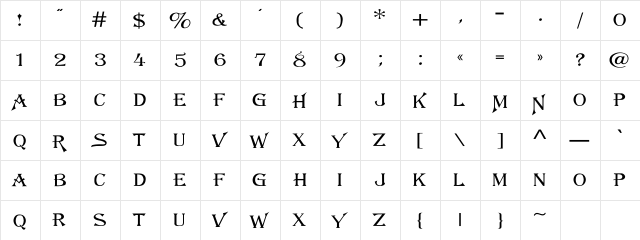
SpeakEasyBold Regular Free Font
SpeakEasyBold Regular
Design Context for SpeakEasyBold
SpeakEasyBold is a composed and adaptable typeface that performs quietly and consistently across a wide range of design contexts. Its bold stroke weight gives it real presence on the page.